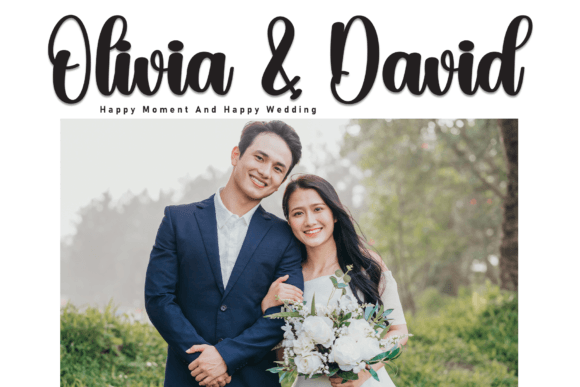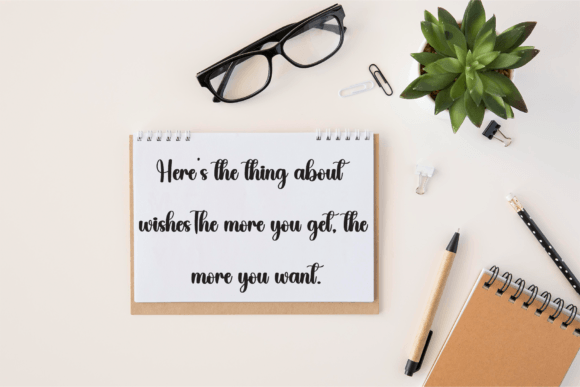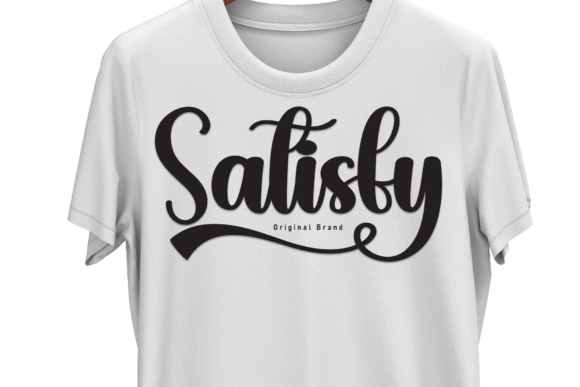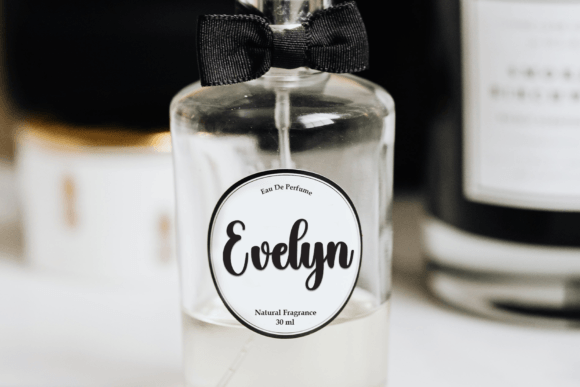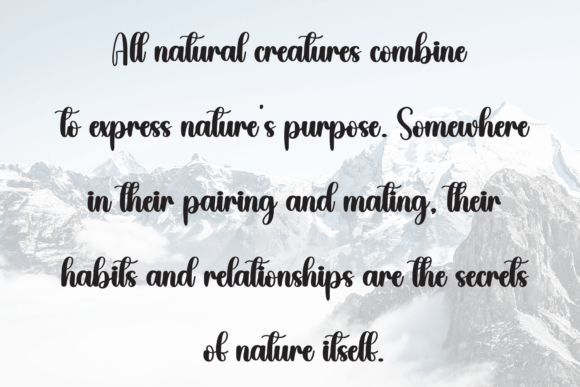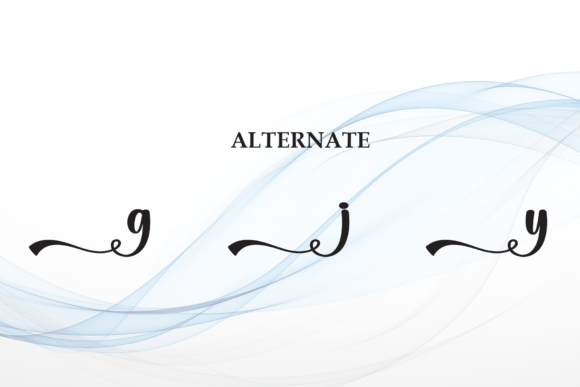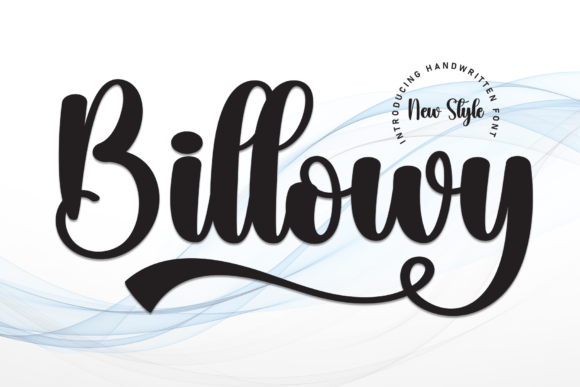
Introducing Billowy Font: The Sweet and Friendly Handwritten Font
Are you tired of using the same old fonts in your designs? Look no further! Billowy Font is here to add a touch of sweetness and friendliness to your creations. This beautiful handwritten font is perfect for designers and crafters who want to add a personal touch to their work.
What Makes Billowy Font Special?
Billowy Font is a unique and natural-looking font that is incredibly versatile. Its sweet and friendly style makes it perfect for a wide range of designs, from invitations and greeting cards to branding and packaging. The only limit to what you can create with Billowy Font is your imagination!
Characteristics of Billowy Font
- Handwritten style: Billowy Font has a beautiful, handwritten style that gives it a personal and unique touch.
- Natural look: The font has a natural, effortless look that makes it perfect for designs that require a friendly and approachable tone.
- Versatile: Billowy Font can be used in a wide range of designs, from formal to informal, and can be paired with various other fonts to create a unique look.
Billowy Font is a great addition to any designer’s or crafter’s toolkit. Whether you’re creating digital products or physical goods, this font can help you add a personal touch to your work. Here are some ideas for using Billowy Font:
- Invitations and greeting cards: Use Billowy Font to create beautiful and unique invitations and greeting cards for special occasions.
- Branding and packaging: Add a personal touch to your brand’s packaging and marketing materials with Billowy Font.
- Digital products: Use Billowy Font to create eye-catching digital products, such as printable art, planners, and journals.
- Handmade products: Add a personal touch to your handmade products, such as knitted items, jewelry, and crafts, with Billowy Font.
Tips for Using Billowy Font
Here are some tips for getting the most out of Billowy Font:
- Pair it with other fonts: Experiment with pairing Billowy Font with other fonts to create a unique look.
- Use it in different sizes: Billowy Font looks great in various sizes, from small to large.
- Experiment with colors: Try using Billowy Font in different colors to add some extra flair to your designs.
In conclusion, Billowy Font is a sweet and friendly handwritten font that is perfect for designers and crafters who want to add a personal touch to their work. Its natural and unique style makes it incredibly versatile, and the only limit to what you can create with it is your imagination! So why not give Billowy Font a try and see what amazing creations you can come up with?